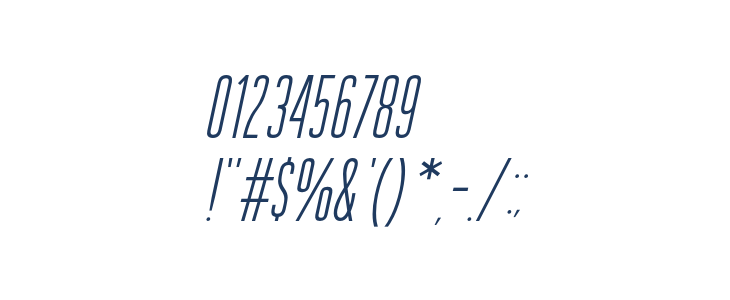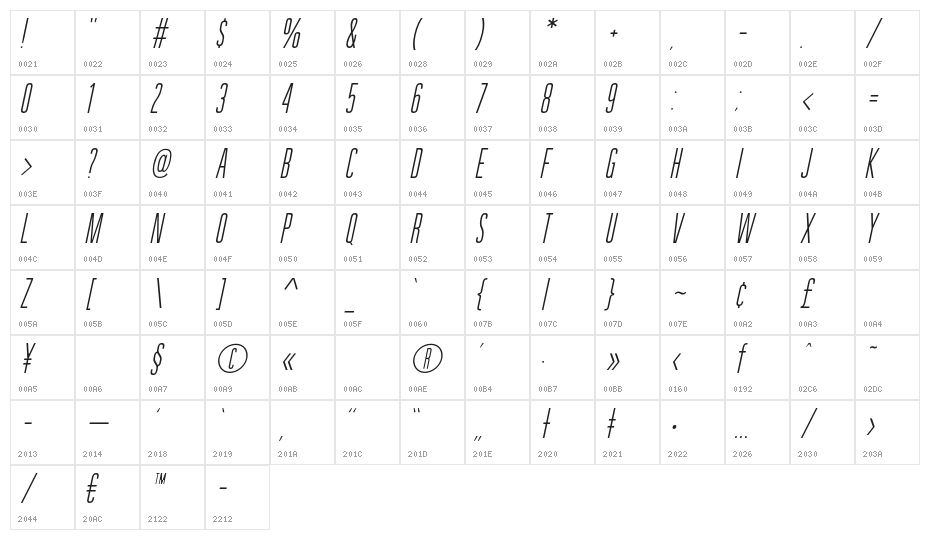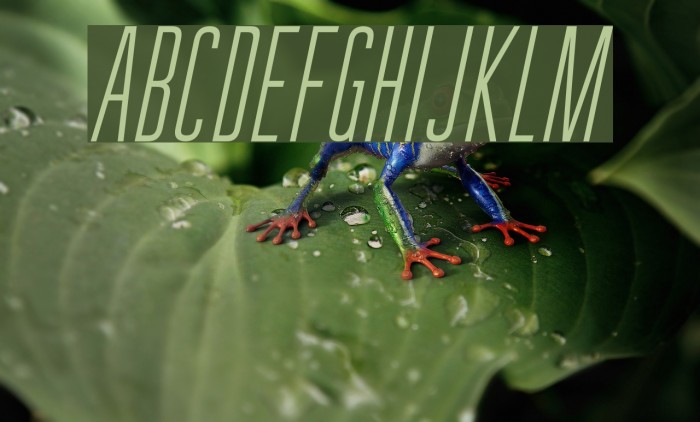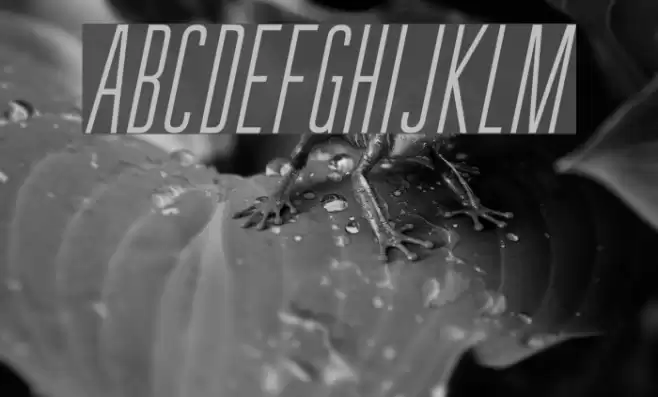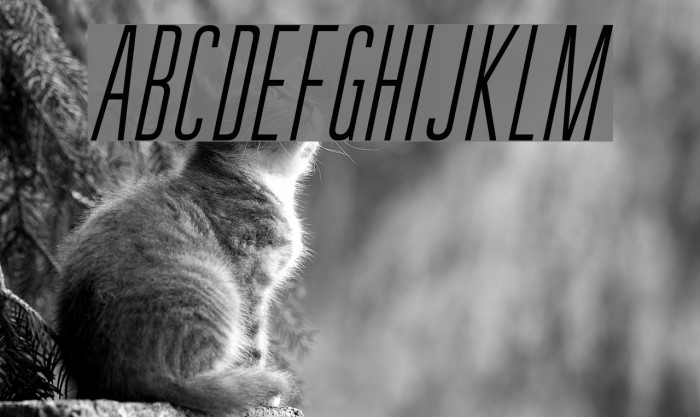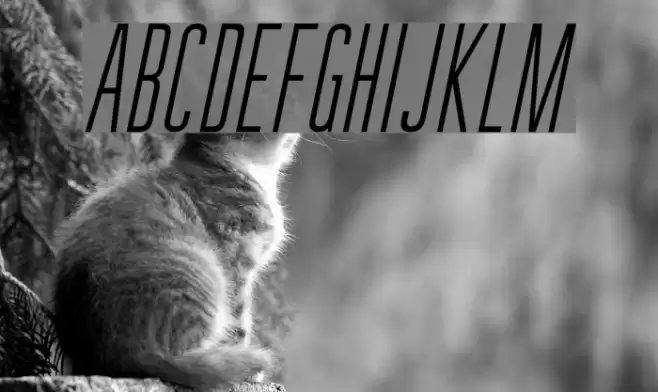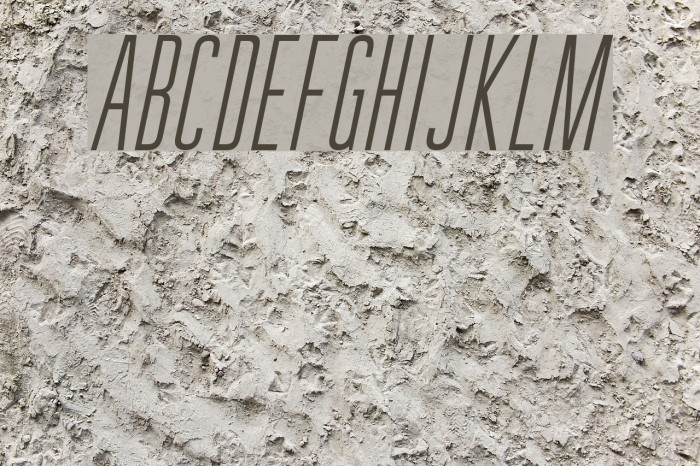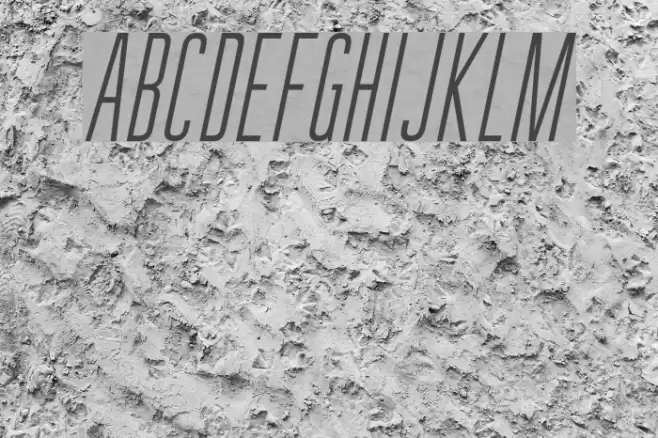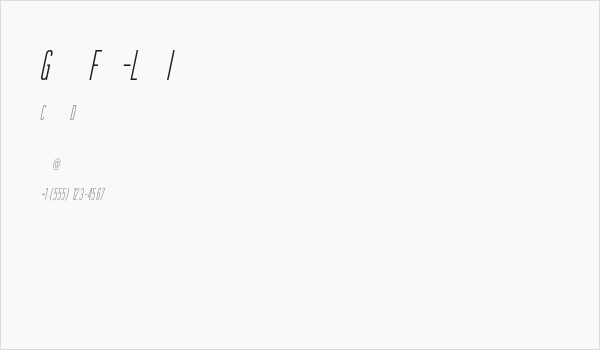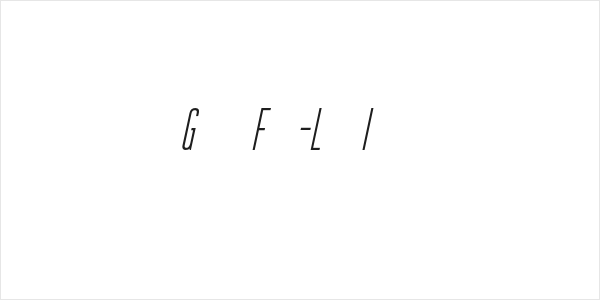
GuilderFree-LightItalic Font
GuilderFree-LightItalic Description
This font features a sleek and modern design with a distinct italic slant, giving it a dynamic and forward-moving appearance. The characters are elongated and narrow, contributing to a condensed width that enhances its contemporary style. The strokes are consistent in weight, providing a uniform look across all characters. The font's clean lines and minimalistic approach make it suitable for a variety of design applications. Its italic nature adds a sense of motion and elegance, making it ideal for projects that require a touch of sophistication and flair.
| Use Case | Headlines, Logos, Editorial Design |
| Proposed Projects | Ideal for branding, advertising, and editorial design where a modern and dynamic look is desired. |